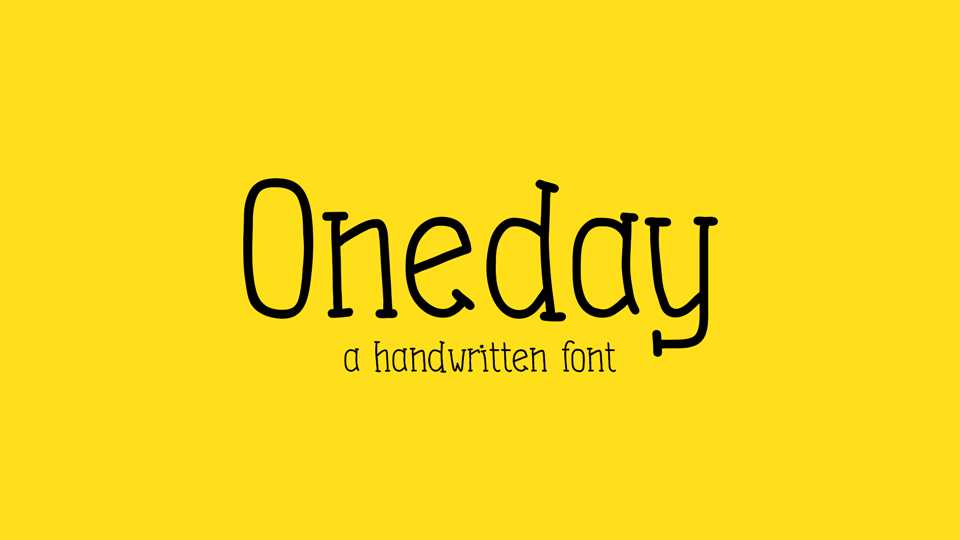
Download Oneday font, a fun and friendly typeface, based on the personal hand-writing style. Initially designed for the web site, Oneday font is perfect for any project, that needs a natural hand drawn look.
Designer: Denys Mishunov